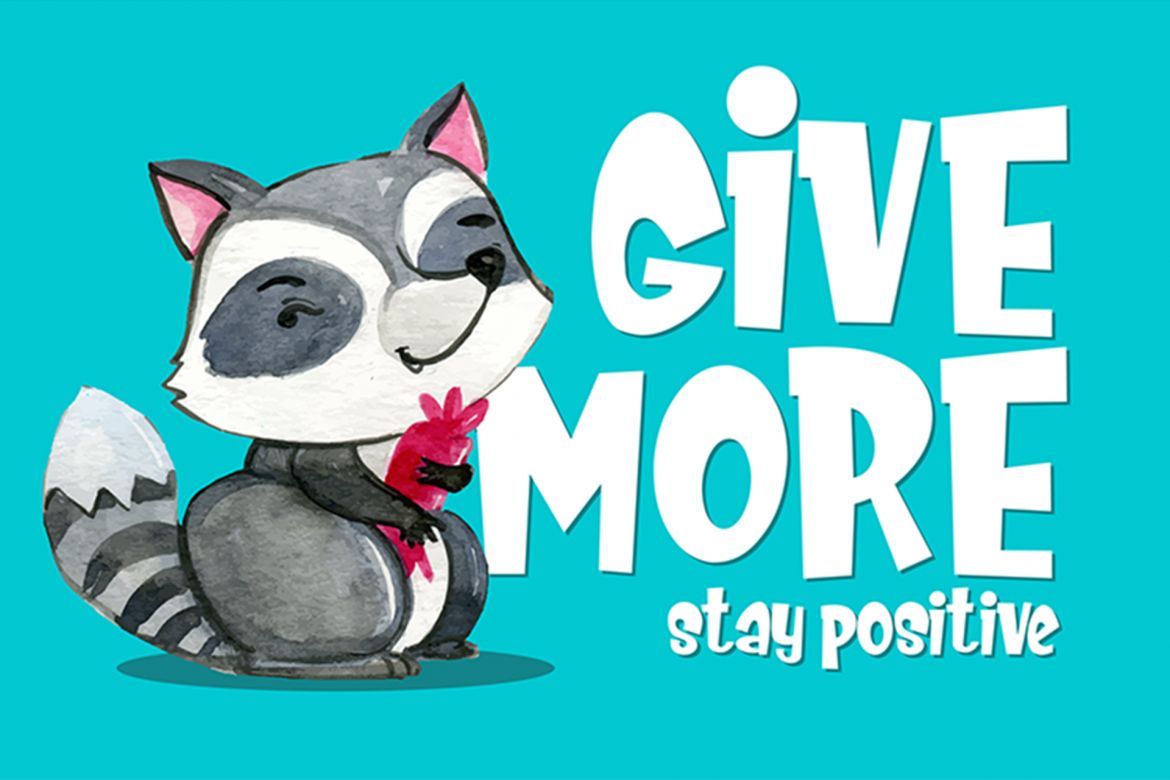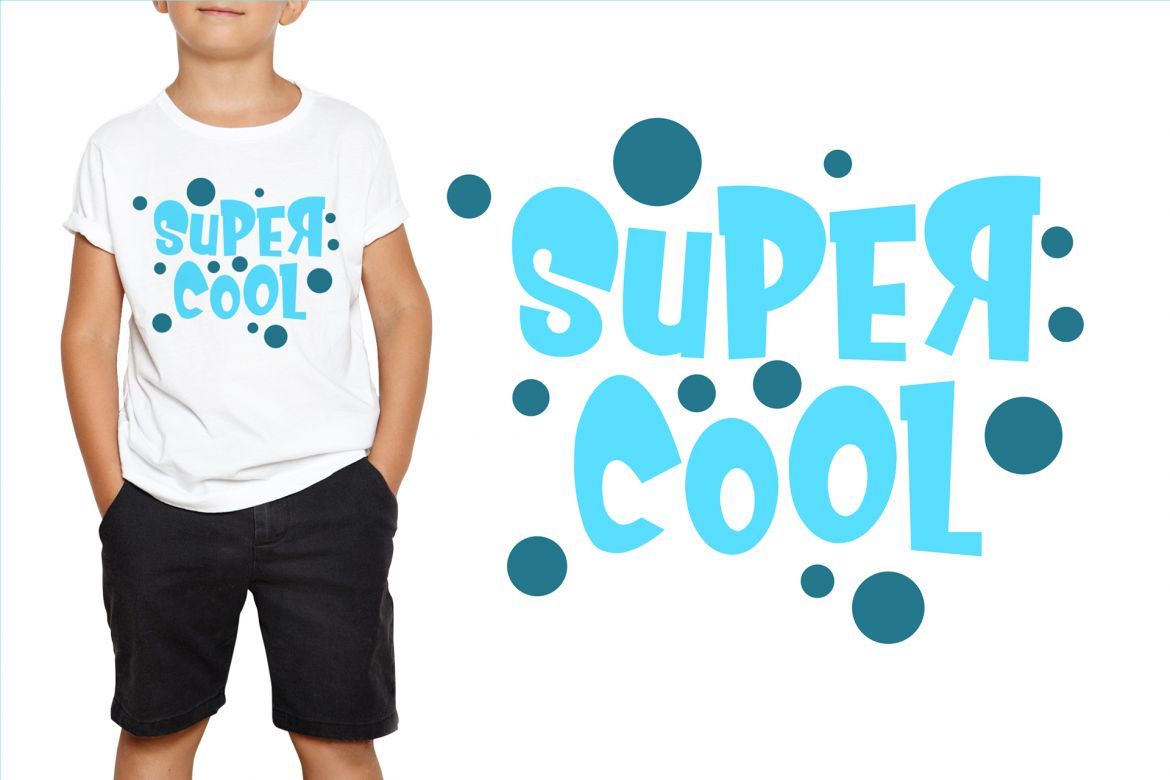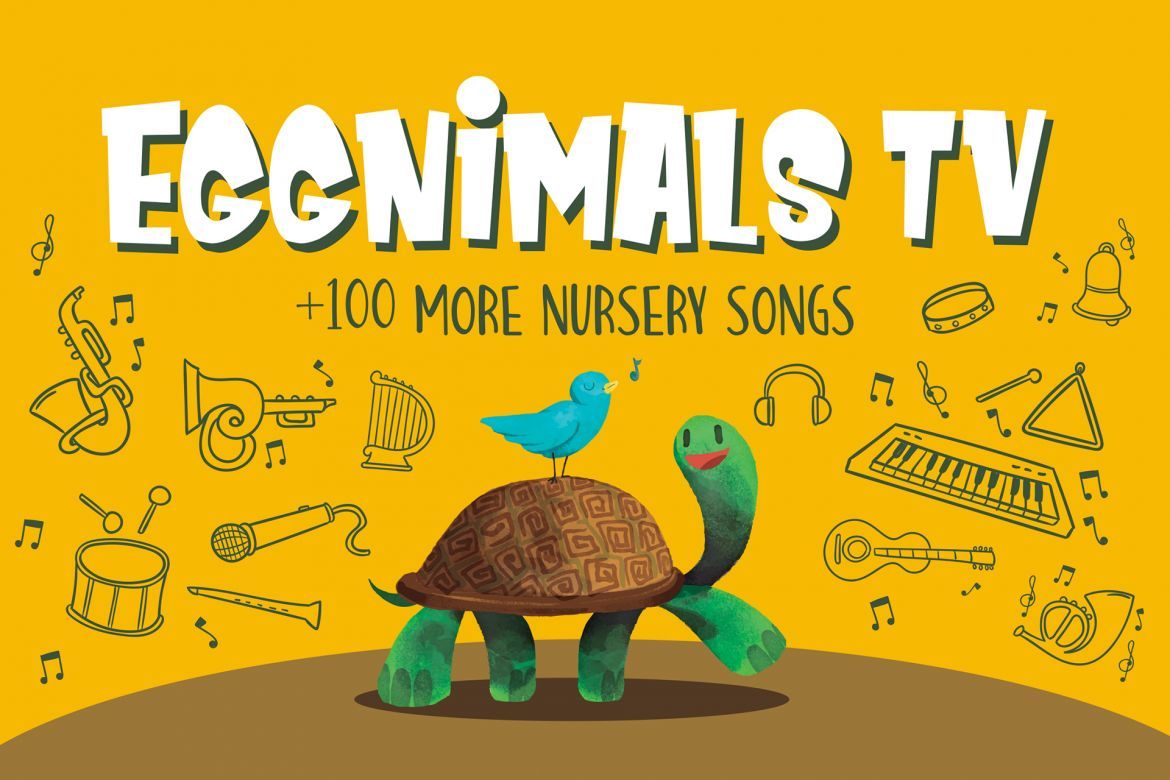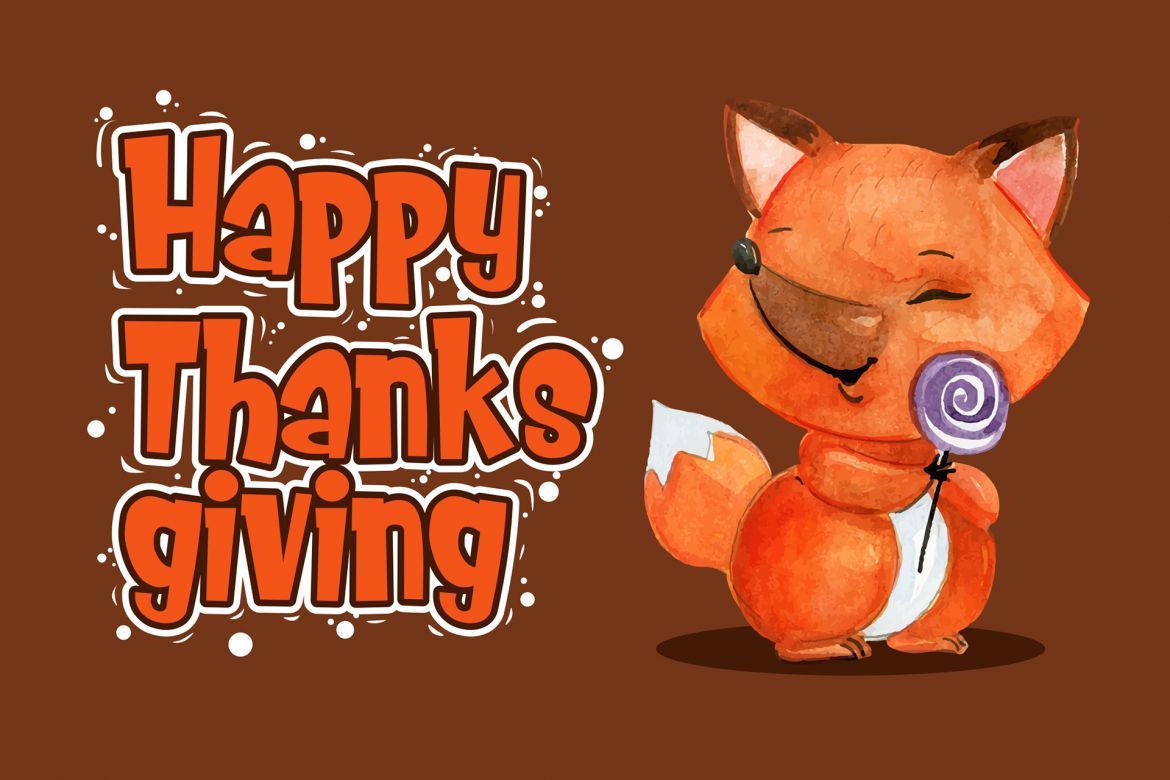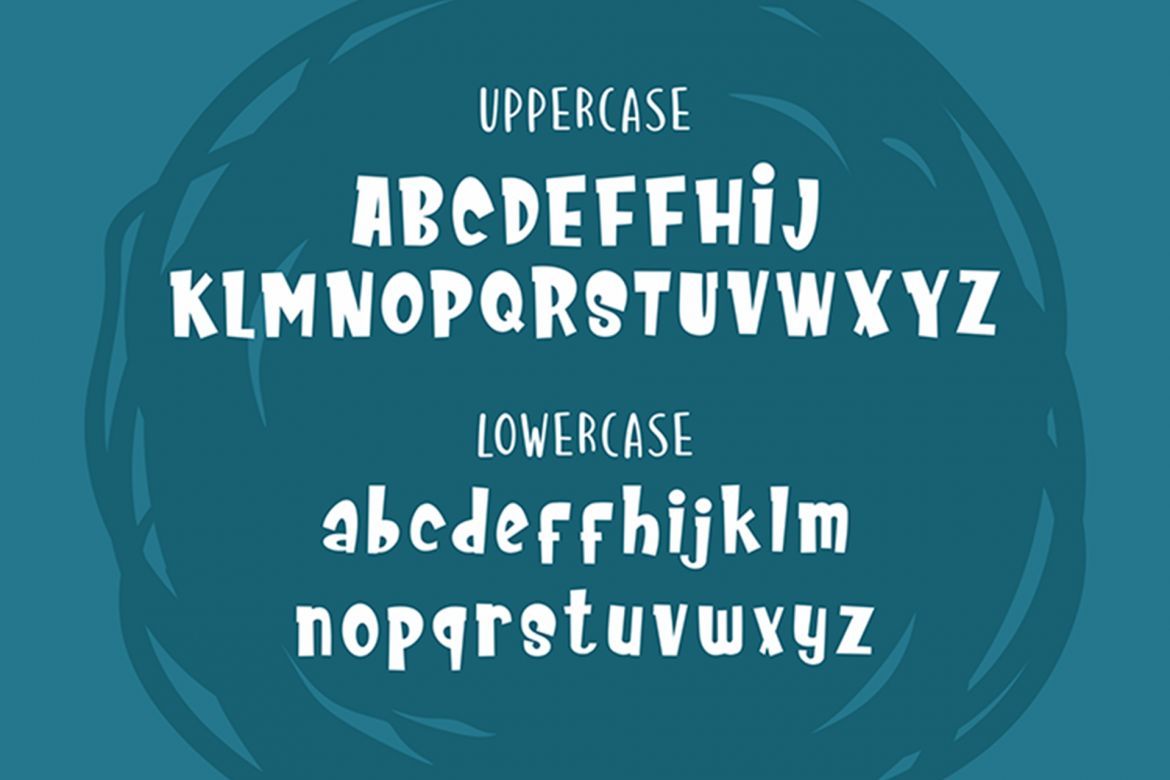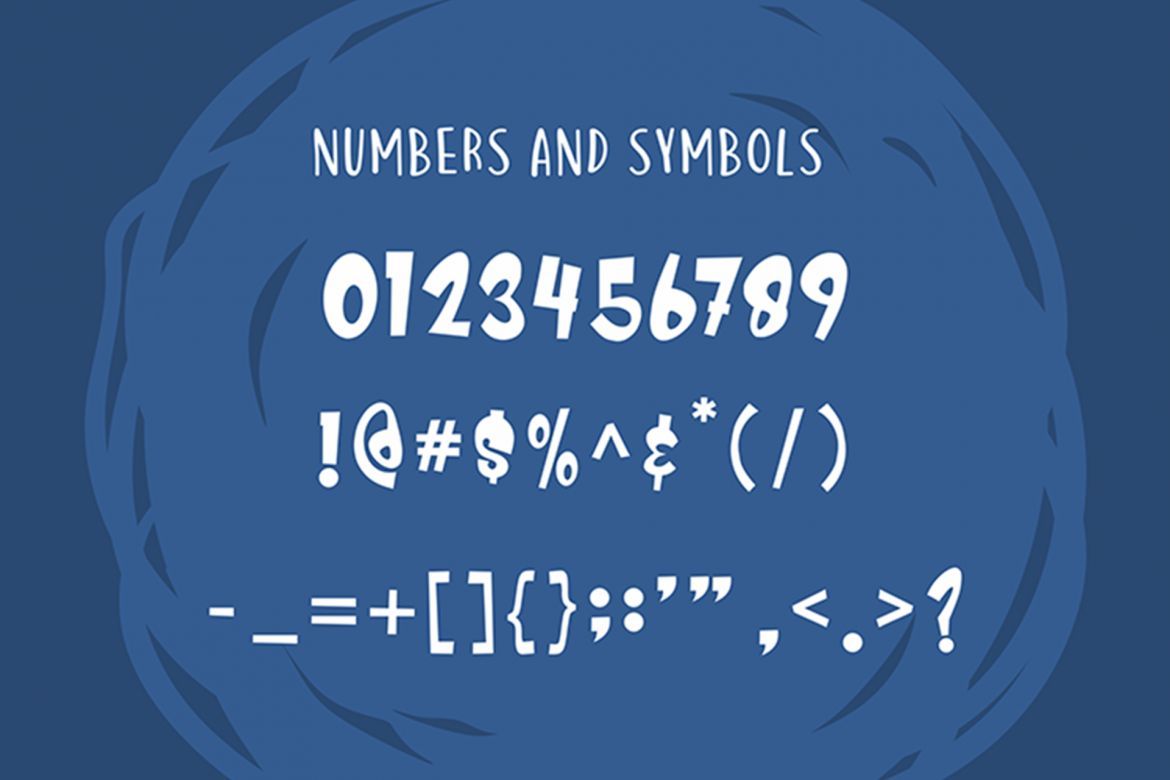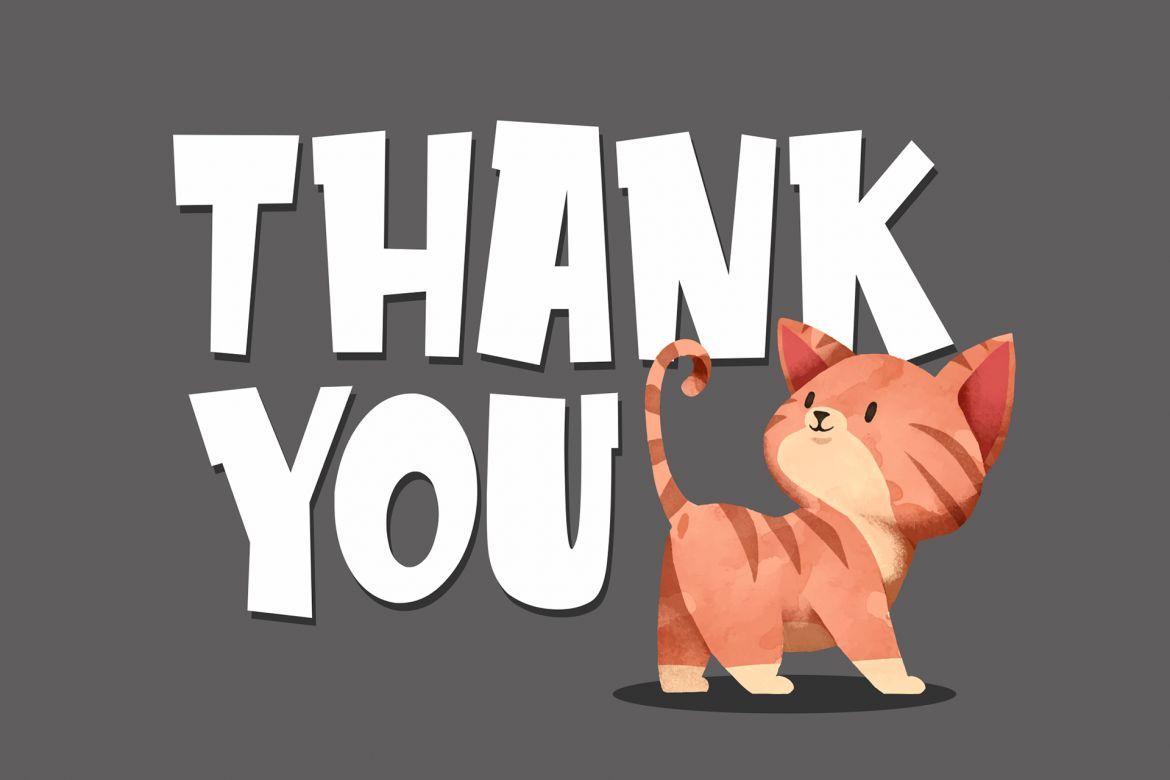
Meowza Font
The Meowza is a playful and fancy font, inspired by my little kids.
Use meowza for posters, t-shirt design, youtube channel cover or anything you want.
• playful and fancy font, inspired by my little kids.
• use meowza for posters, t-shirt design, youtube channel cover or anything you want.